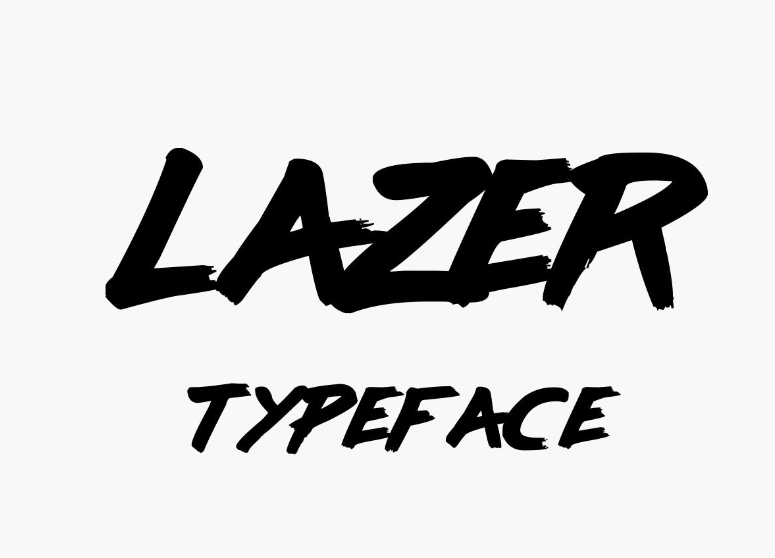
Lazer free brush font is essentially the most dependent fonts with better working out and drafting behavior. These brush fonts seem to look like streamster font specific dry brush strokes drawn on paper.